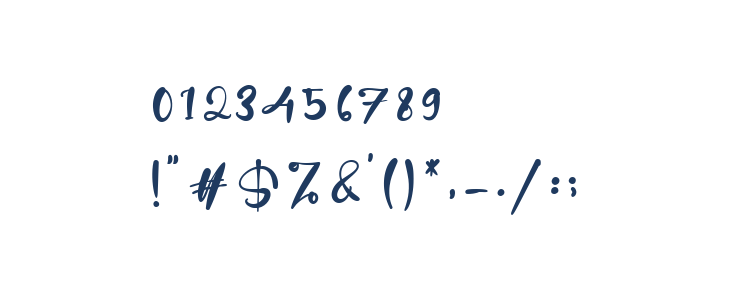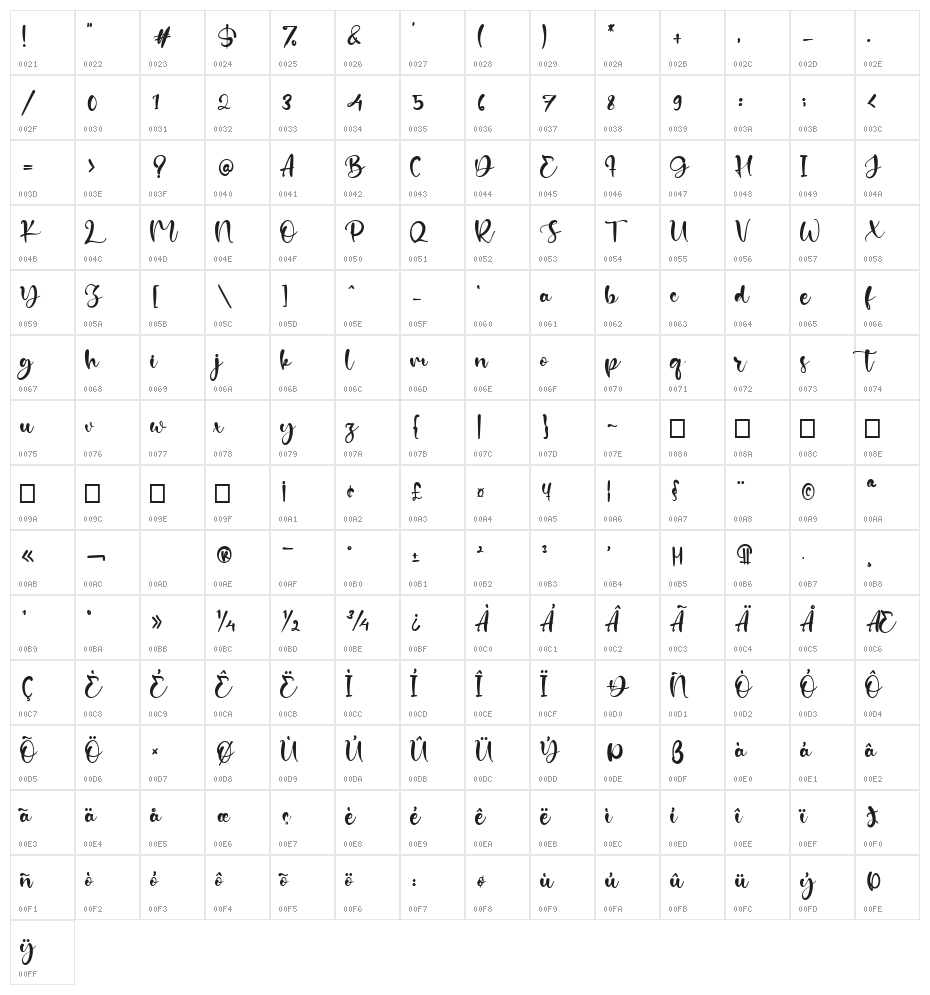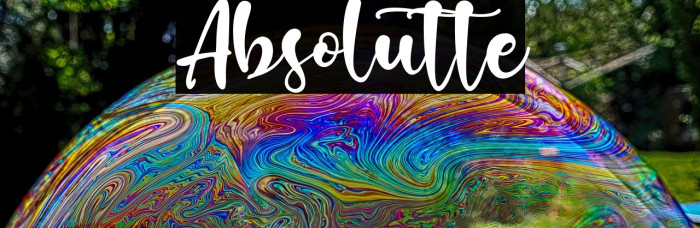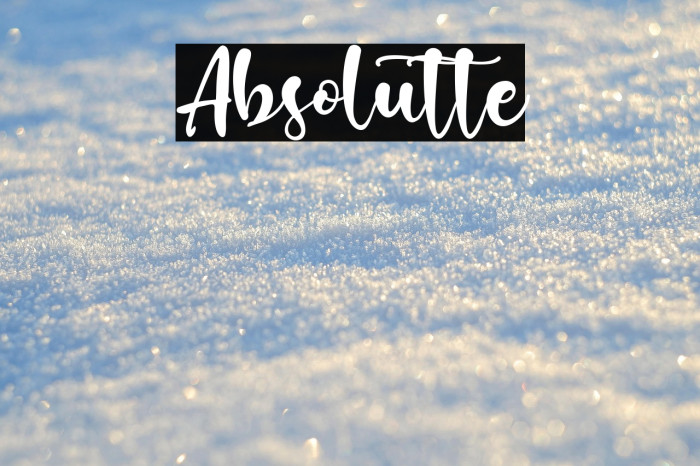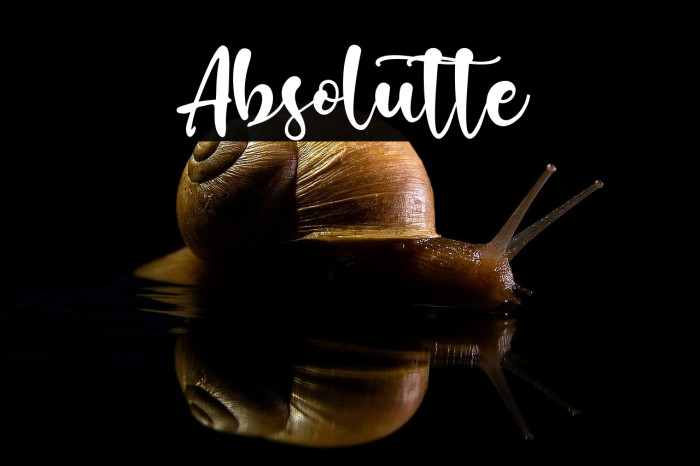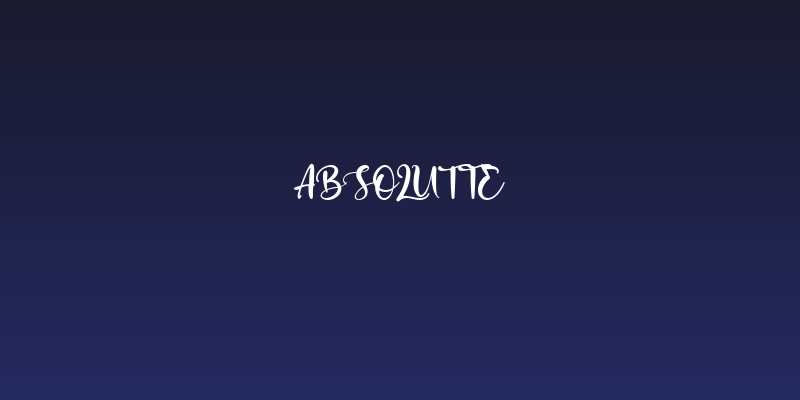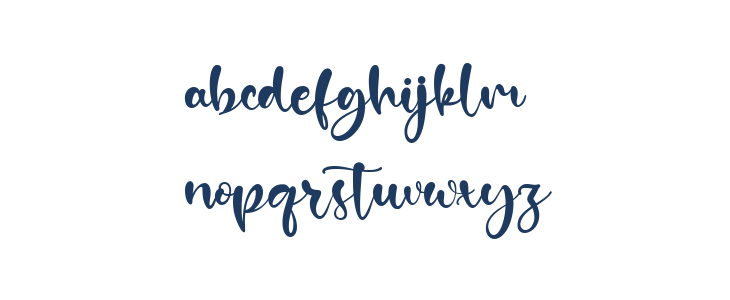
Absolutte Font
Absolutte Description
This font features a flowing, cursive style with a playful and elegant appearance. The characters are interconnected, giving a handwritten feel that is both casual and sophisticated. The uppercase letters are bold and expressive, while the lowercase letters maintain a consistent flow. The numerals are distinct yet harmonize well with the overall script style. Special characters are creatively integrated, maintaining the font's cohesive look. The strokes are smooth and rounded, adding to the font's approachable and friendly nature.